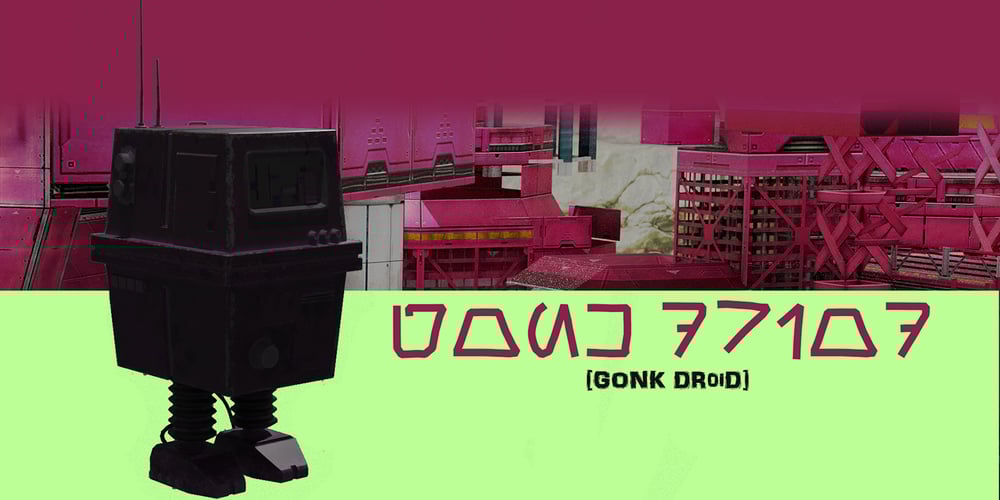
Gonk Droid
Gonk Droid font
Gonk Droid Font Family was designed by Edward Schneider and published by Edd’s Aurebesh Fontworks. Gonk Droid contains 1 styles and family package options. Making some Star Wars stuff? This Aurebesh font is designed to look like something you would see on a piece of quick and dirty graphic design in the Star Wars universe, like a wanted poster or a warning sign. The font includes the additional Aurebesh glyphs beyond the 26 basic characters (all in lowercase & uppercase) as well as numbers and symbols.